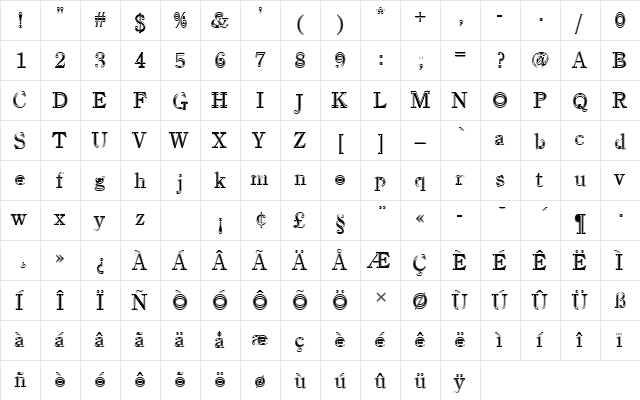
CenturyOldStyTRegIn1 Regular
CenturyOldStyTRegIn1 is a composed and adaptable typeface that performs quietly and consistently across a wide range of design contexts.